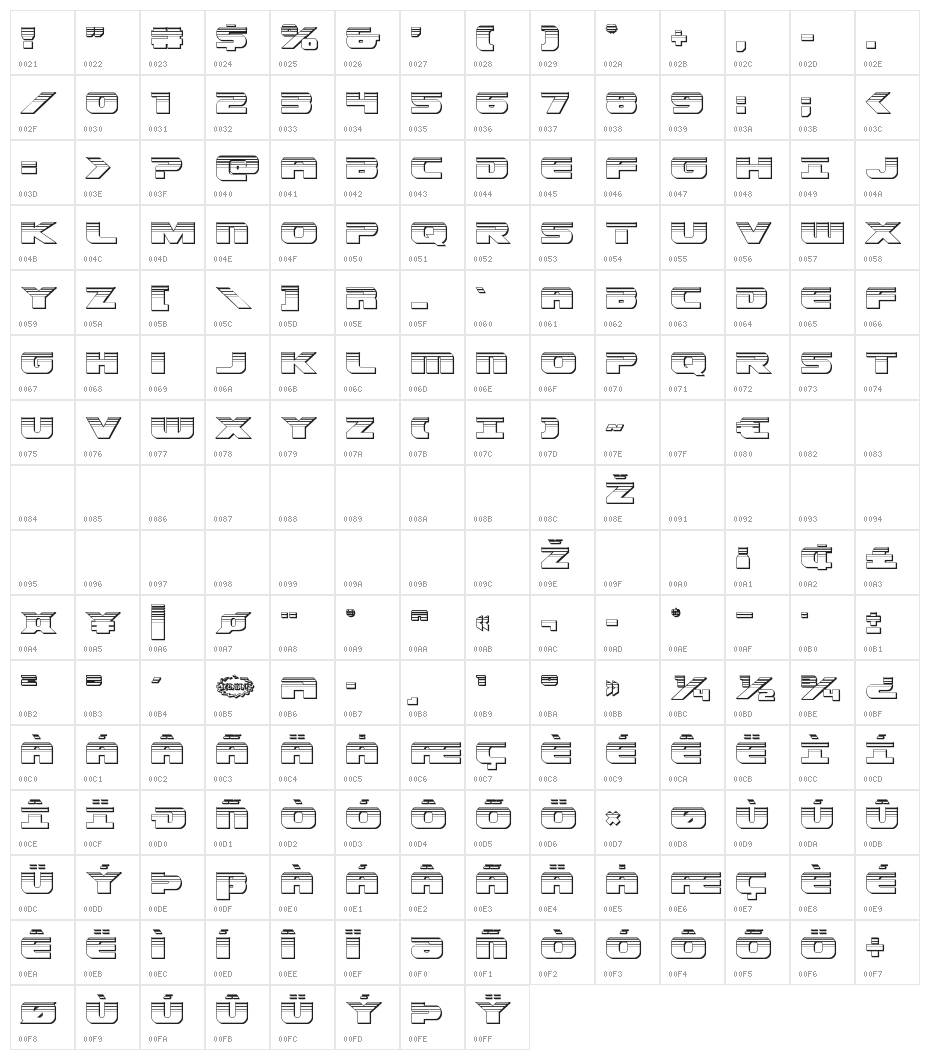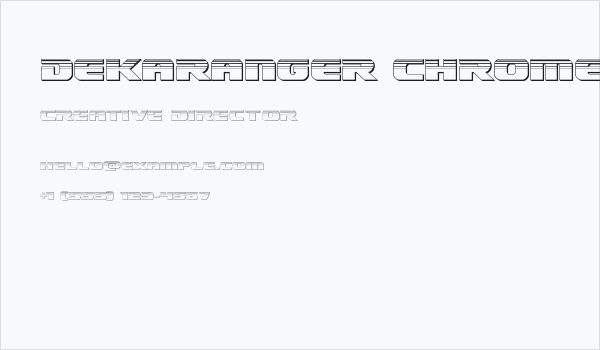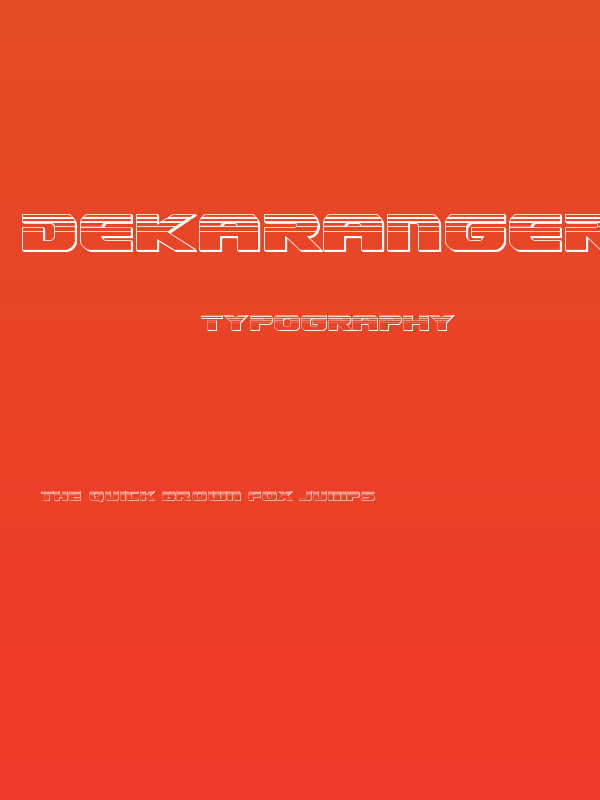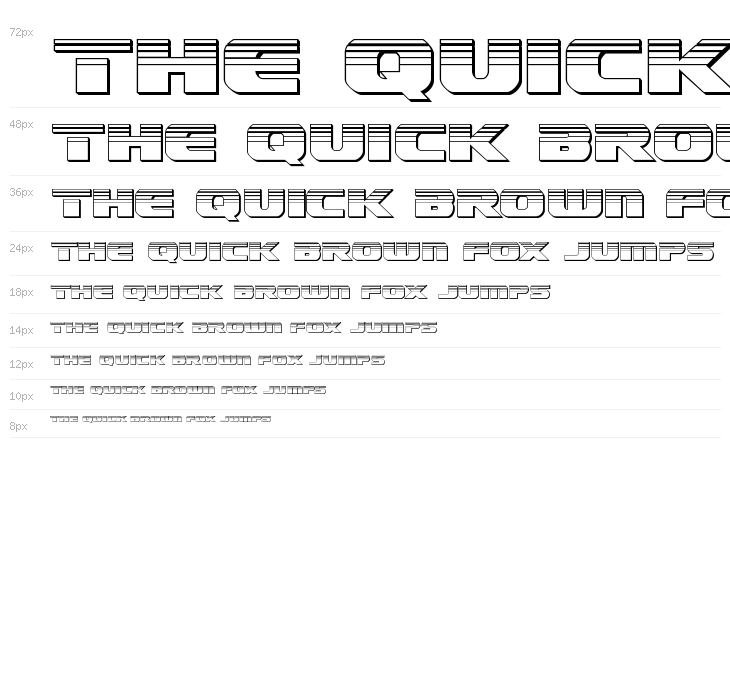
Dekaranger Chrome Font
Dekaranger Chrome Description
This font features a bold, futuristic design with a distinct chrome-like appearance. The characters are outlined with a double-line effect, giving them a three-dimensional look. The geometric shapes and sharp angles contribute to its modern and tech-inspired aesthetic. The uppercase letters are uniform in height, while the numbers and special characters maintain the same stylistic approach, ensuring consistency across all glyphs. This font's unique style makes it ideal for projects that require a strong visual impact.
| Proposed Projects | Ideal for sci-fi themed projects, tech branding, video game titles, and futuristic posters. |